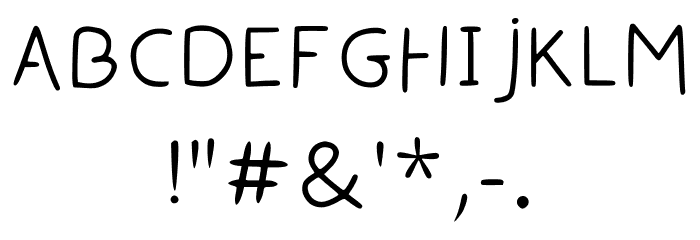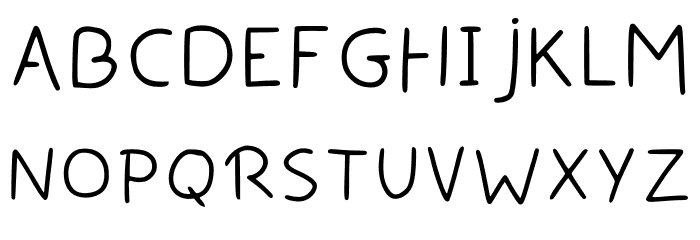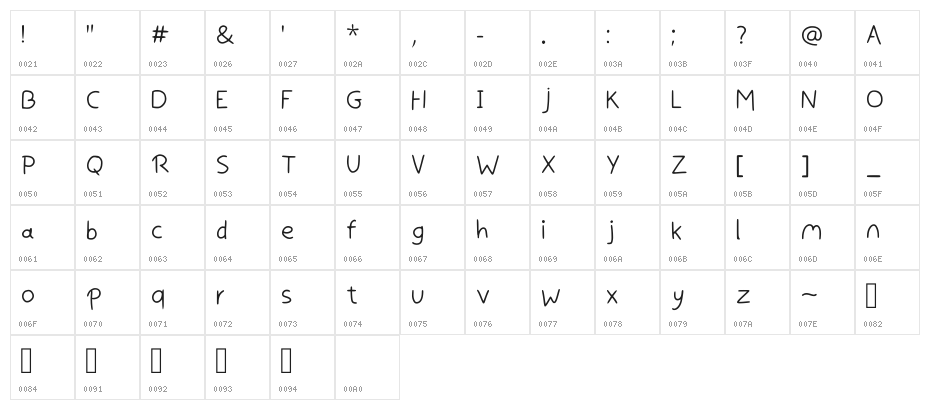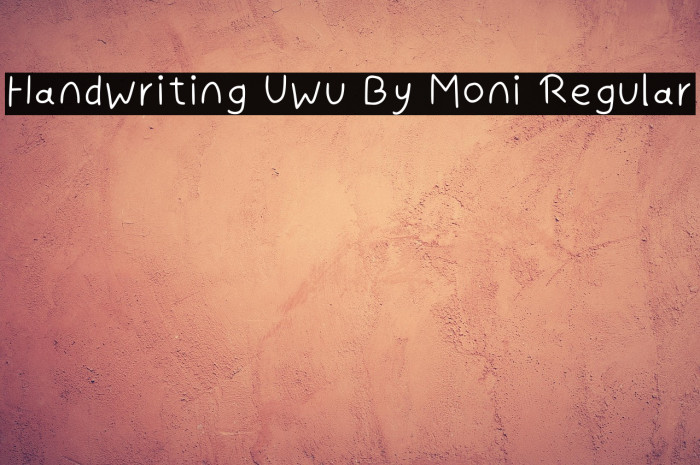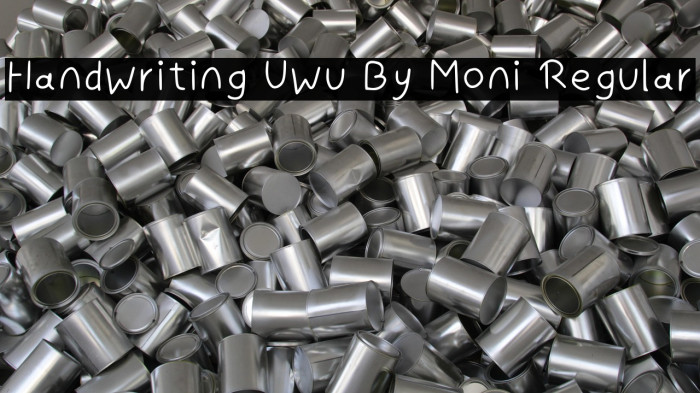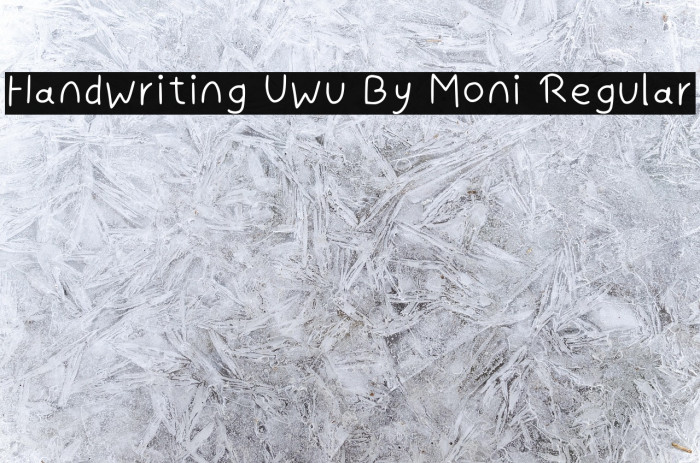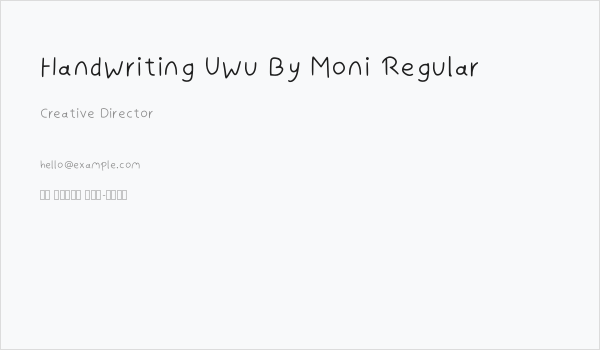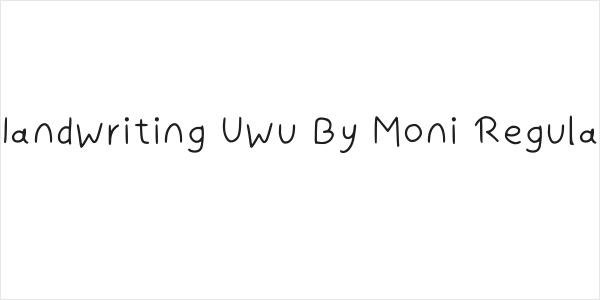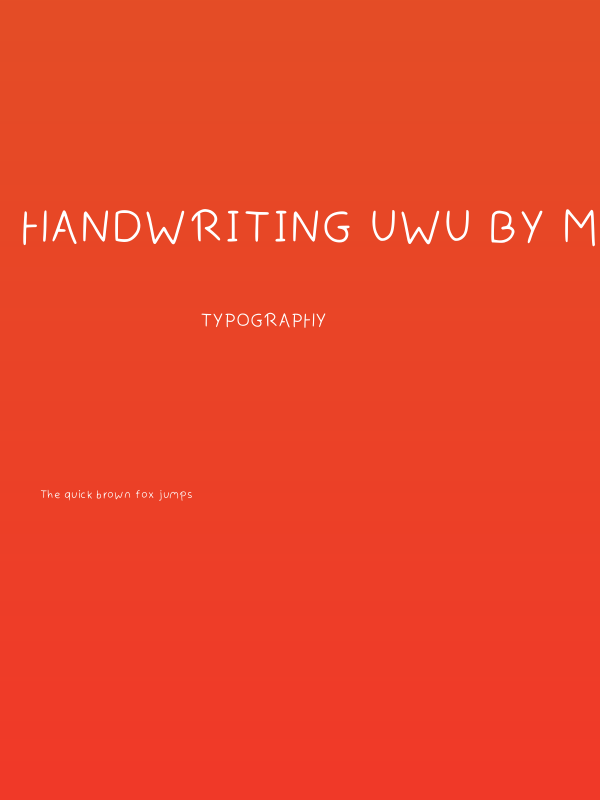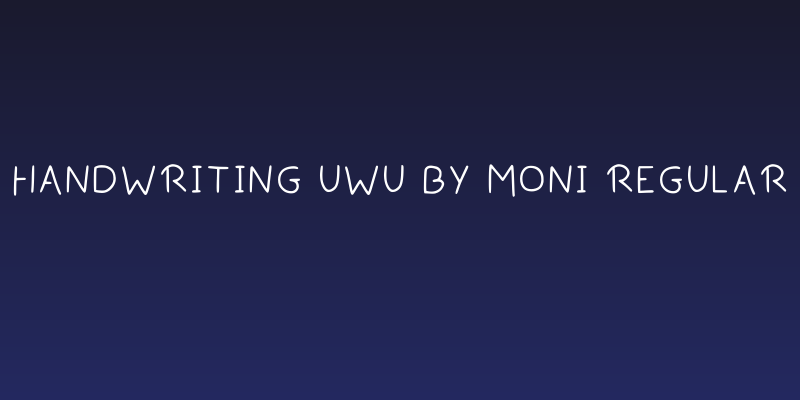
Handwriting Uwu By Moni Regular Font
Handwriting Uwu By Moni Regular Description
A playful, handwritten font with a casual and friendly appearance. The letters are rounded and slightly irregular, giving it a whimsical feel.
| Overall Style | Casual, Whimsical |
| Use Case | Informal text, Creative projects |
| Proposed Projects | Greeting cards, children's books, informal invitations. |